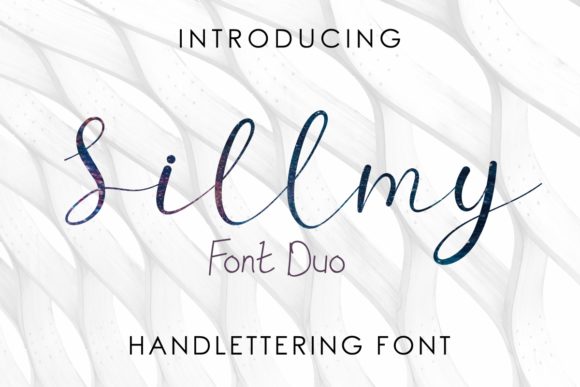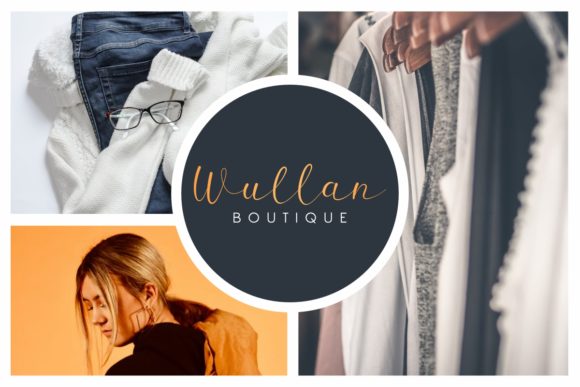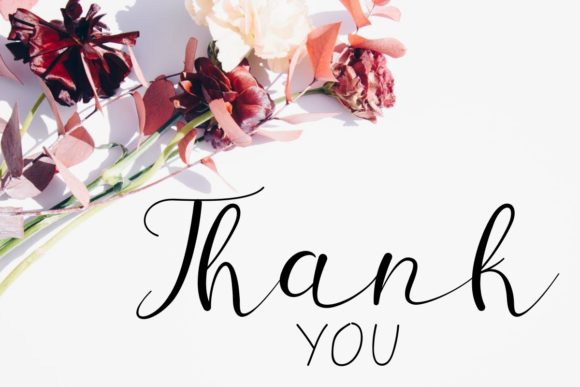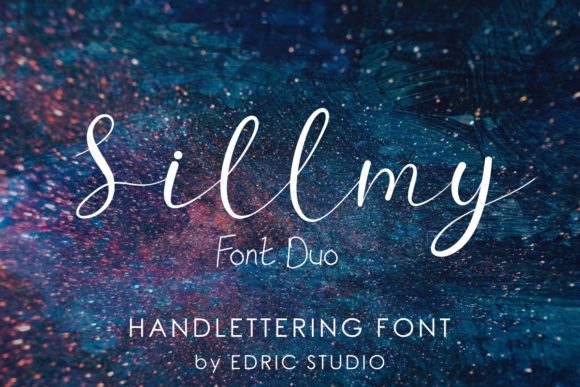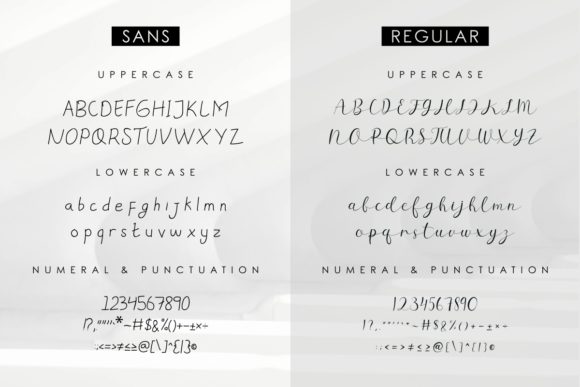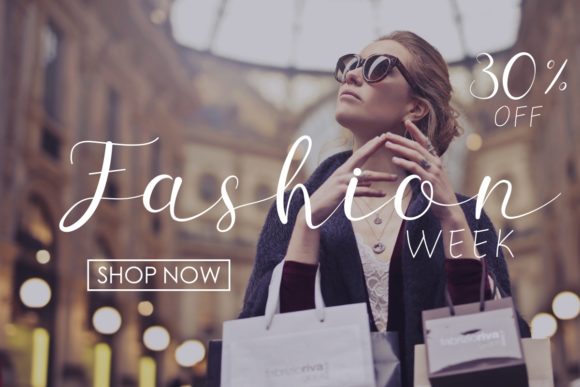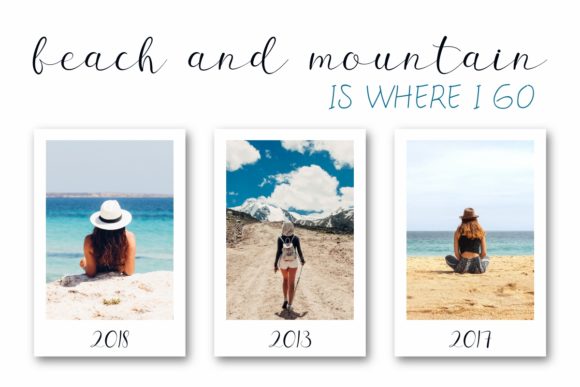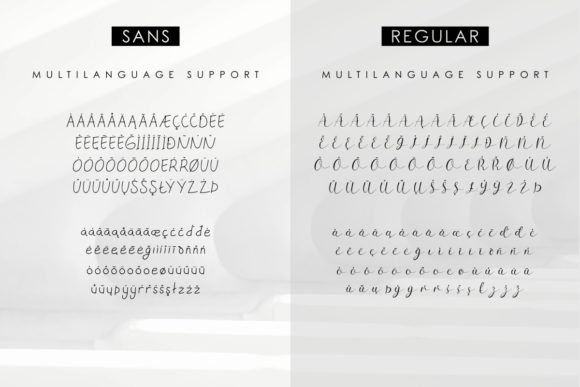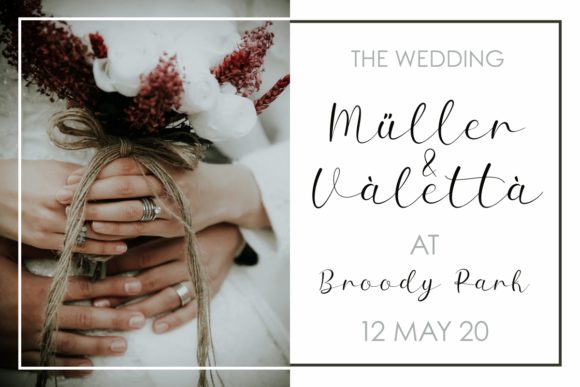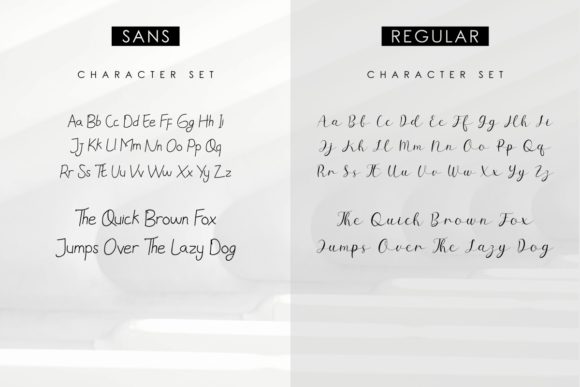
HomeScript FontsSillmy Font Script Fonts Sillmy Font FacebookXPinterestWhatsApp Sillmy Font Poster 2 Sillmy Font Poster 3 Sillmy Font Poster 4 Sillmy Font Poster 5 Sillmy Font Poster 6 Sillmy Font Poster 7 Sillmy Font Poster 8 Sillmy Font Poster 9 Sillmy Font Poster 10 Sillmy Font Poster 11 About Sillmy Font Sillmy is a lovely font duo with elegant style. It is perfectly suited for a wide variety of projects! DOWNLOAD NOW People also explored Butterly Font Roughymen Font Red Marble Font Marker and Paper Font Kalimera Font ZP Speculate Font Mug Mock-Ups Volume 1 Bistro Cafe Mug Santiago BTN Tearjerking Font 302 0 TagsSillmy Font Previous articleRockybily FontNext articleCattily Font LEAVE A REPLY Cancel reply Comment: Please enter your comment! Name:* Please enter your name here Email:* You have entered an incorrect email address! Please enter your email address here Website: Save my name, email, and website in this browser for the next time I comment. Personal Use Free Winter Soldier Personal Use Free Read more about this font Archeology Personal Use Free Read more about this font Built Tilting Personal Use Free Read more about this font Vembazax Rm Personal Use Free Read more about this font BLOG 5 Fonts That Will Dominate Design Trends in 2026 5 Fonts for 2026 That Will Dominate Design Trends Typography plays a critical role in visual communication, and as we look ahead to 2026, it’s... To increase your work productivity, choose the most readable fonts. How to Cut Any Font on Cricut: Convert a Font to SVG (Free) How to Install and Use Fonts on Windows, macOS, and Web Projects